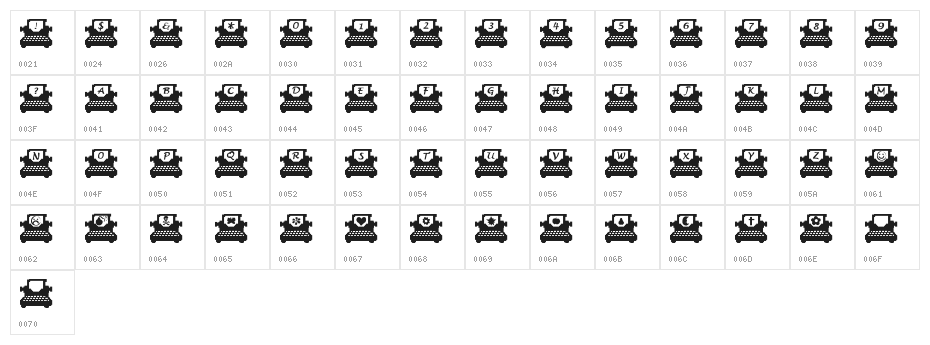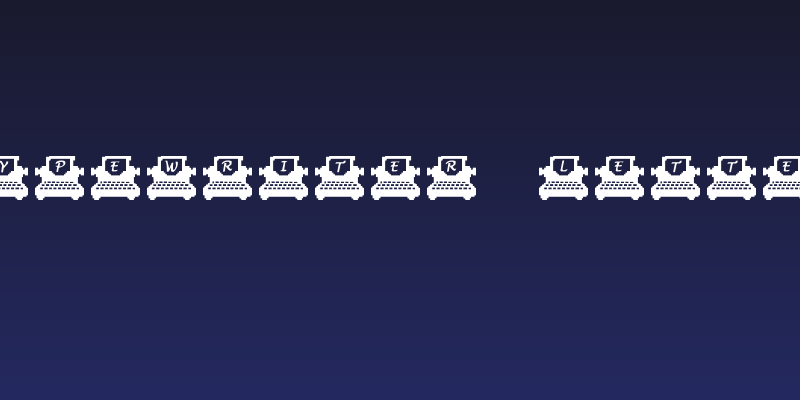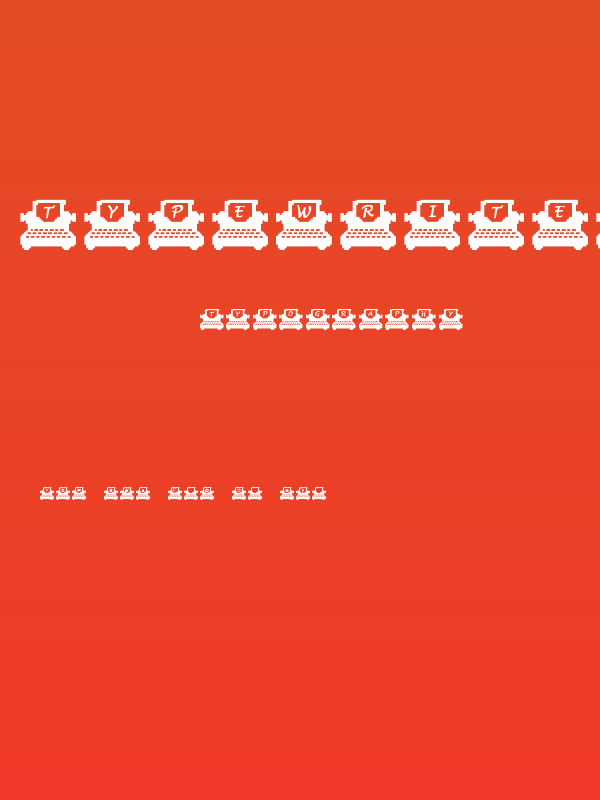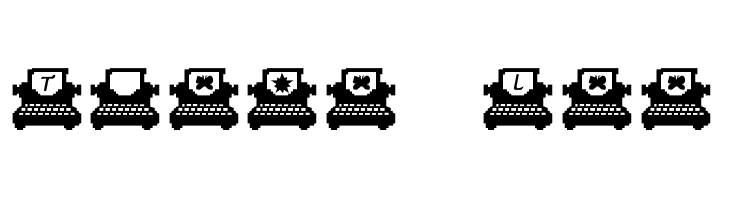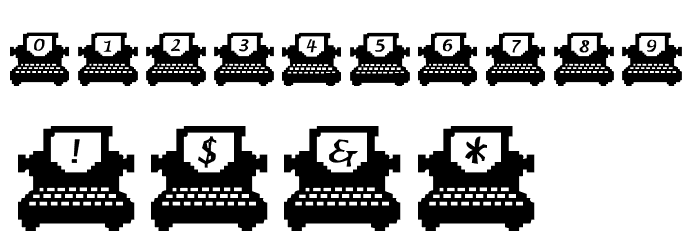
Typewriter Letter Font
Typewriter Letter Description
This font features a unique design where each character is embedded within the silhouette of a vintage typewriter. The letters and numbers are clear and bold, making them stand out against the intricate typewriter background. The style is playful and nostalgic, evoking a sense of retro charm. The characters are evenly spaced, ensuring readability despite the decorative elements. The font includes a full set of uppercase and lowercase letters, numbers, and a selection of special characters, each maintaining the typewriter theme. This design is perfect for projects that aim to capture a vintage or whimsical aesthetic.
| Overall Style | Vintage |
| Use Case | Logos, Headlines, Posters |
| Proposed Projects | Ideal for vintage-themed posters, creative writing projects, retro branding, and playful graphic designs. |